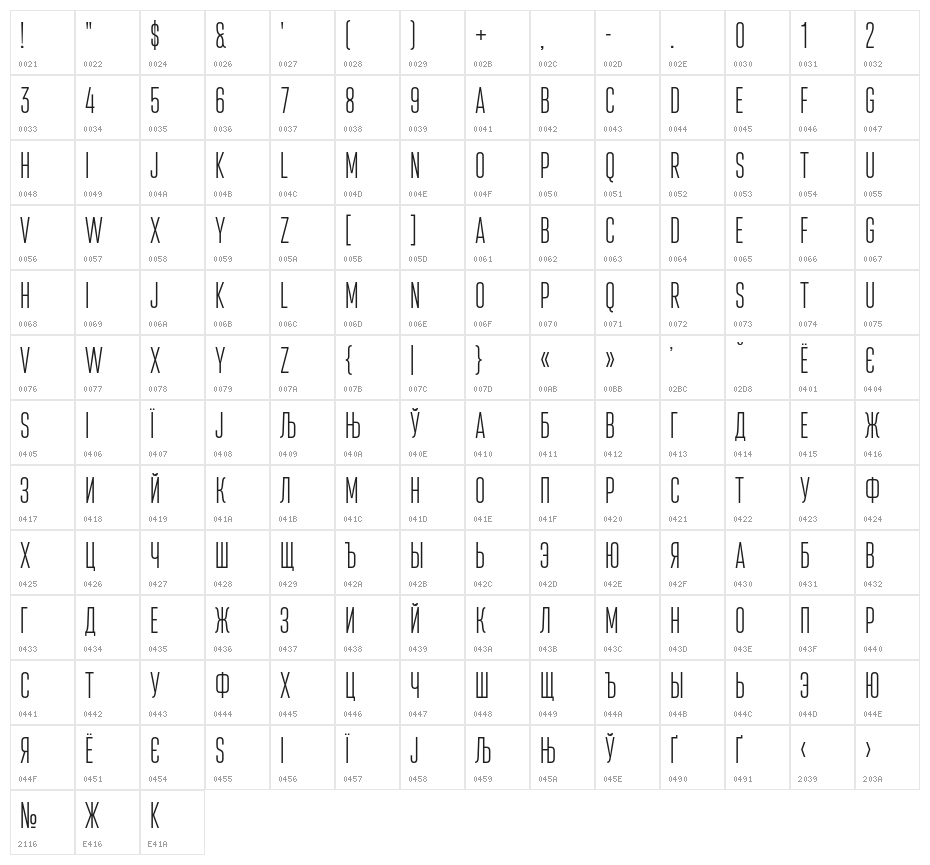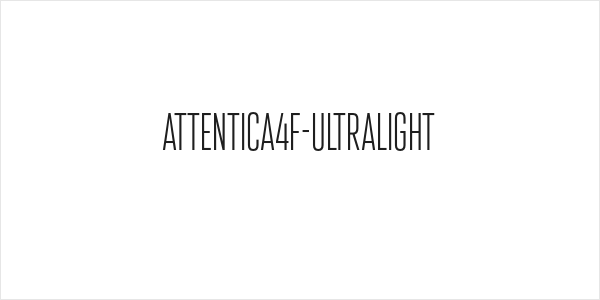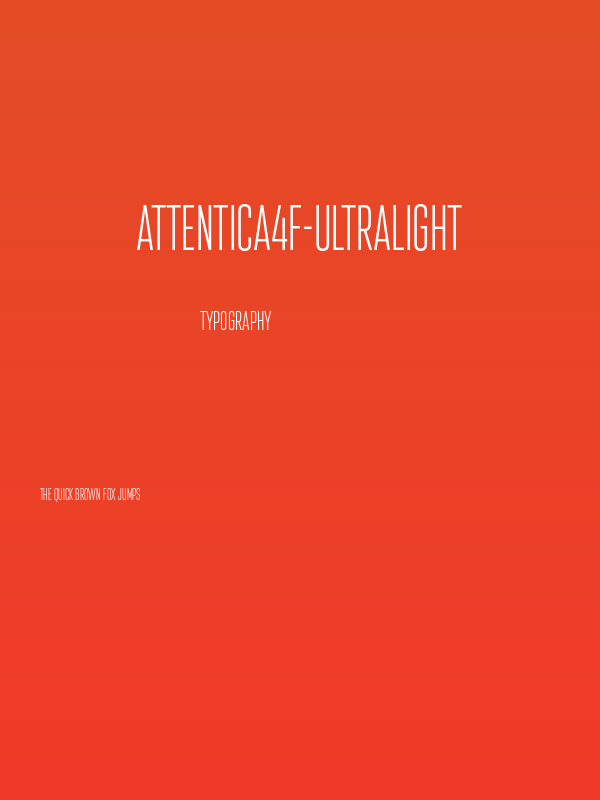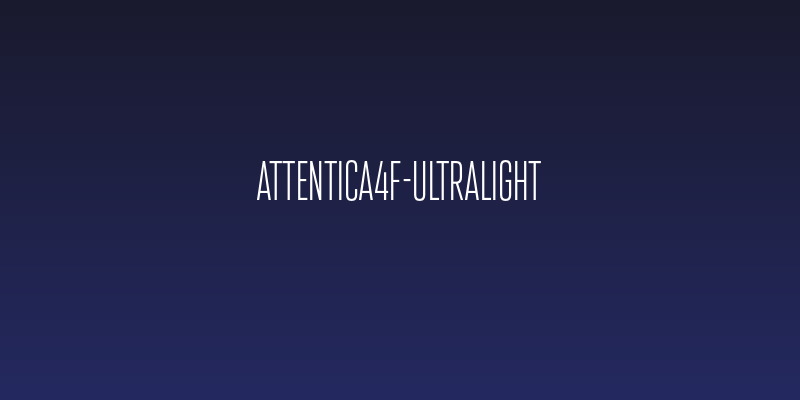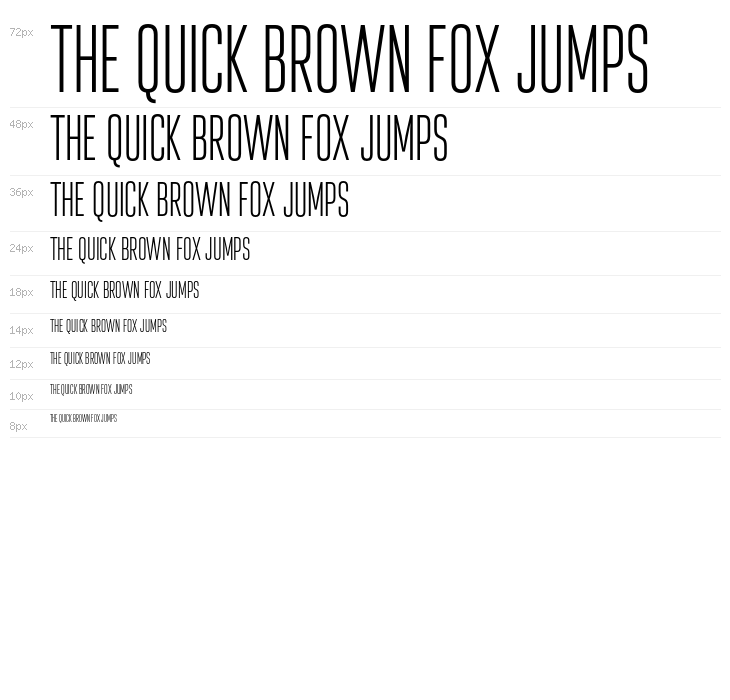
Attentica4F-UltraLight Font
Attentica4F-UltraLight Description
This font features an ultra-lightweight design with a tall, narrow structure, emphasizing verticality and elegance. The characters are clean and modern, with a consistent stroke width that conveys a sense of minimalism and sophistication. The uppercase and lowercase letters maintain a uniform height, contributing to a cohesive and streamlined appearance. The numerals are equally slender, complementing the overall aesthetic. Special characters are designed with the same thin strokes, ensuring harmony across all glyphs. This font is ideal for projects that require a contemporary and sleek look.